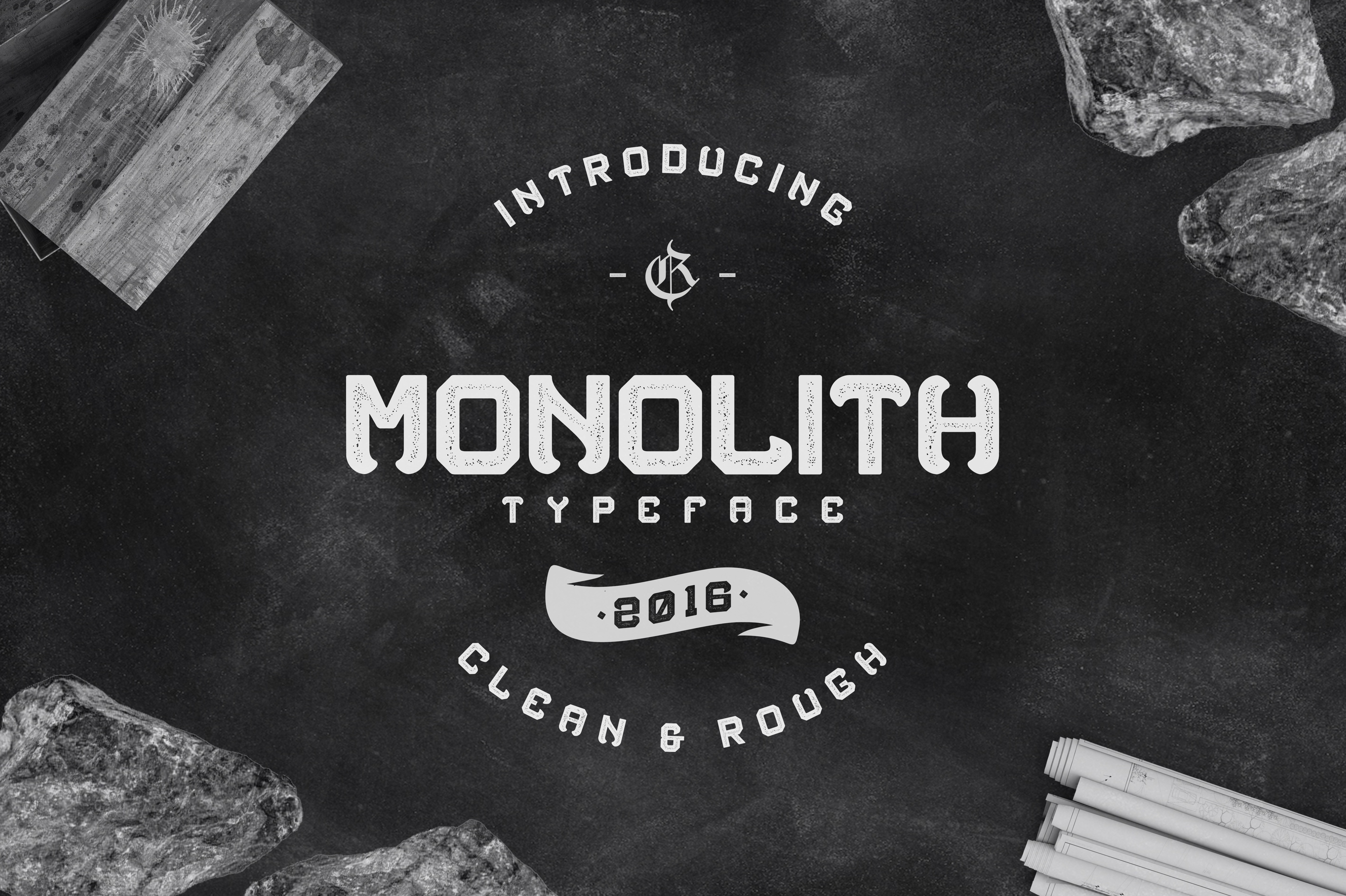
Monolith typeface is new font from RVQ type foundry,the font with simple, minimalistic, retro and vintage feel character set. Come with 2 styles, a clean and rough,The Monolith typeface includes a full set of capital and lowercase letters, as wellas multi-lingual support, currency figures, numerals,punctuation. Monolith typeface is suitable font for many creative products & designs also logo type.
Monolith typeface is suitable font for many creative products & designs.